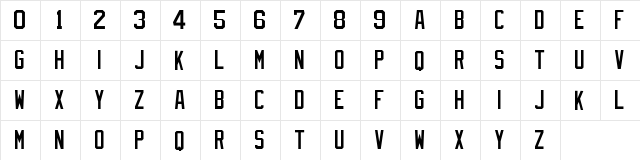
NHL Boston Regular
Design Context for NHL Boston Typeface
NHL Boston offers clean, dependable letterforms without strong stylistic allegiance, making it a practical choice for designers who need flexibility.
Pro Tip: Use NHL Boston in both headline and body roles to test its range before committing to a single application.